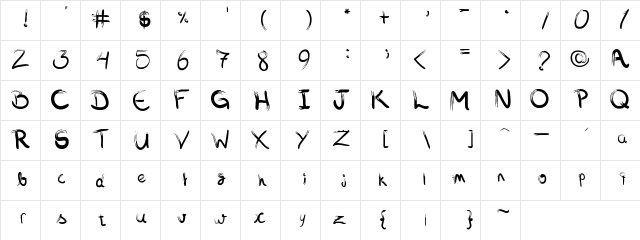
bruxi Regular
Design Context for bruxi Typeface
bruxi is a composed and adaptable typeface that performs quietly and consistently across a wide range of design contexts.